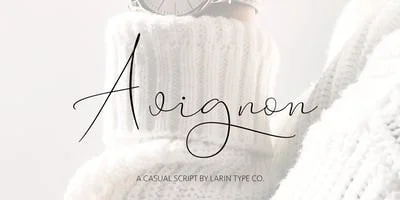
Avignon Font
The Avignon Font excels in various design applications including historic French city branding, medieval architectural marketing, papal heritage communications, French cultural tourism materials, historic preservation project signage, European heritage center identities, French wine region promotions, historical museum exhibitions, medieval festival marketing, and distinguished European projects that demand French historical elegance and papal sophistication.
What makes the Avignon Font exciting is its majestic embodiment of French historical grandeur and papal architectural heritage through letterforms that capture the essence of medieval France and the magnificent legacy of Avignon's papal palace period. This typeface demonstrates exceptional dignity through carefully crafted characters that suggest the imposing stone architecture of medieval fortifications, the scholarly traditions of papal courts, and the timeless elegance that defines authentic French historical patrimony. The font's historical personality makes it perfect for cultural institutions and French heritage organizations seeking to communicate medieval authenticity, papal grandeur, and the kind of historical sophistication that honors centuries of French cultural achievement through typography that literally resonates with medieval magnificence.
The Avignon Font family typically includes stately weight variations that enhance the medieval aesthetic, featuring dignified styling options and extended character sets supporting French linguistic requirements and European cultural applications. These family options often include papal alternates, medieval symbols, and French decorative elements that provide designers with comprehensive tools for creating authentically historical typography that celebrates French heritage while maintaining contemporary design appeal and cultural sensitivity.
Cultural heritage professionals and French tourism organizations consistently select Avignon Font for projects requiring typography that communicates French historical authenticity and papal sophistication. This typeface delivers exceptional performance in heritage marketing, cultural branding, and historical communications where establishing French credibility and demonstrating respect for medieval traditions is essential for cultural appreciation. The font's papal character makes it particularly effective for museum and wine region applications. Download Avignon Font today to access this historically rich typeface that transforms French communications with its medieval elegance and papal sophistication, creating compelling heritage experiences that honor the magnificent architectural legacy of medieval Avignon while celebrating the scholarly grandeur that defines authentic French historical culture and papal artistic achievement.